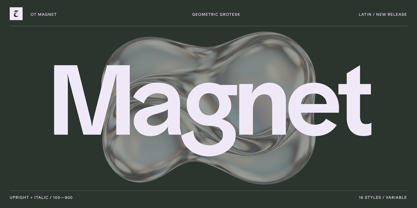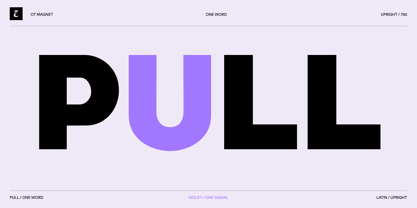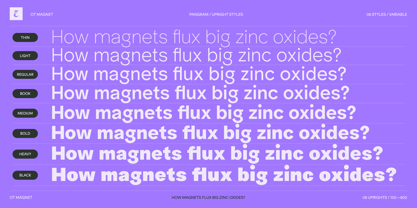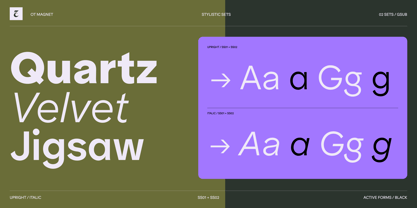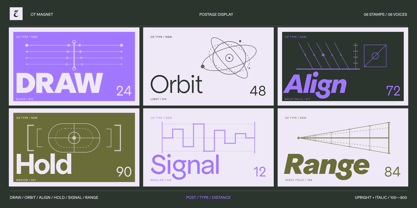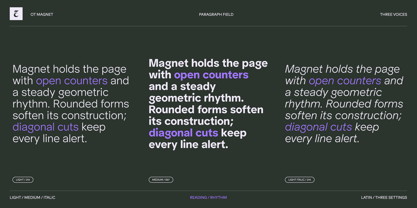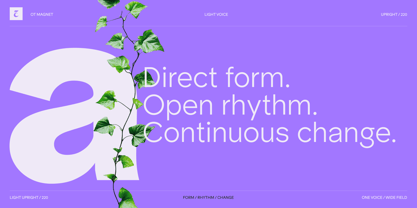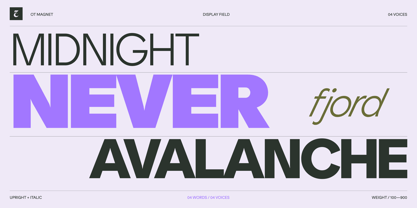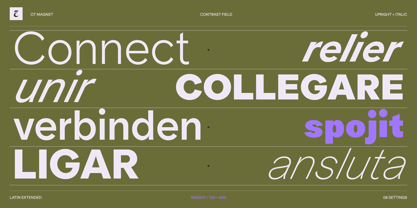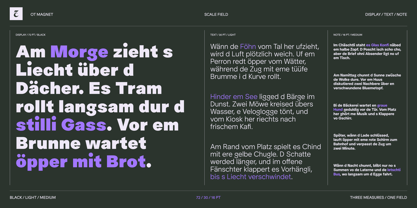
OT Magnet
by OzType.
The OT Magnet Font Family was designed by Oussama Horchani, Jack Wilson and published by OzType.. OT Magnet contains 17 styles and family package options. More about this family
OT Magnet is a geometric grotesque balancing mechanical precision with a warm, distinctive personality. Built with a large x-height, circular details, and familiar double-storey letterforms, it brings clarity and character to both text and display settings. An extensive collection of stylistic alternates expands its visual language, from single-storey forms to rounded, straight-sided, and pointed constructions, complemented by distinctive symbols and circled numerals. With 16 styles and Variable Fonts offering continuous control over weight in upright and italic designs, OT Magnet brings an energetic, contemporary rhythm to editorial design, visual identities, digital interfaces, and packaging.
Designers: Oussama Horchani, Jack Wilson
Foundry: OzType.